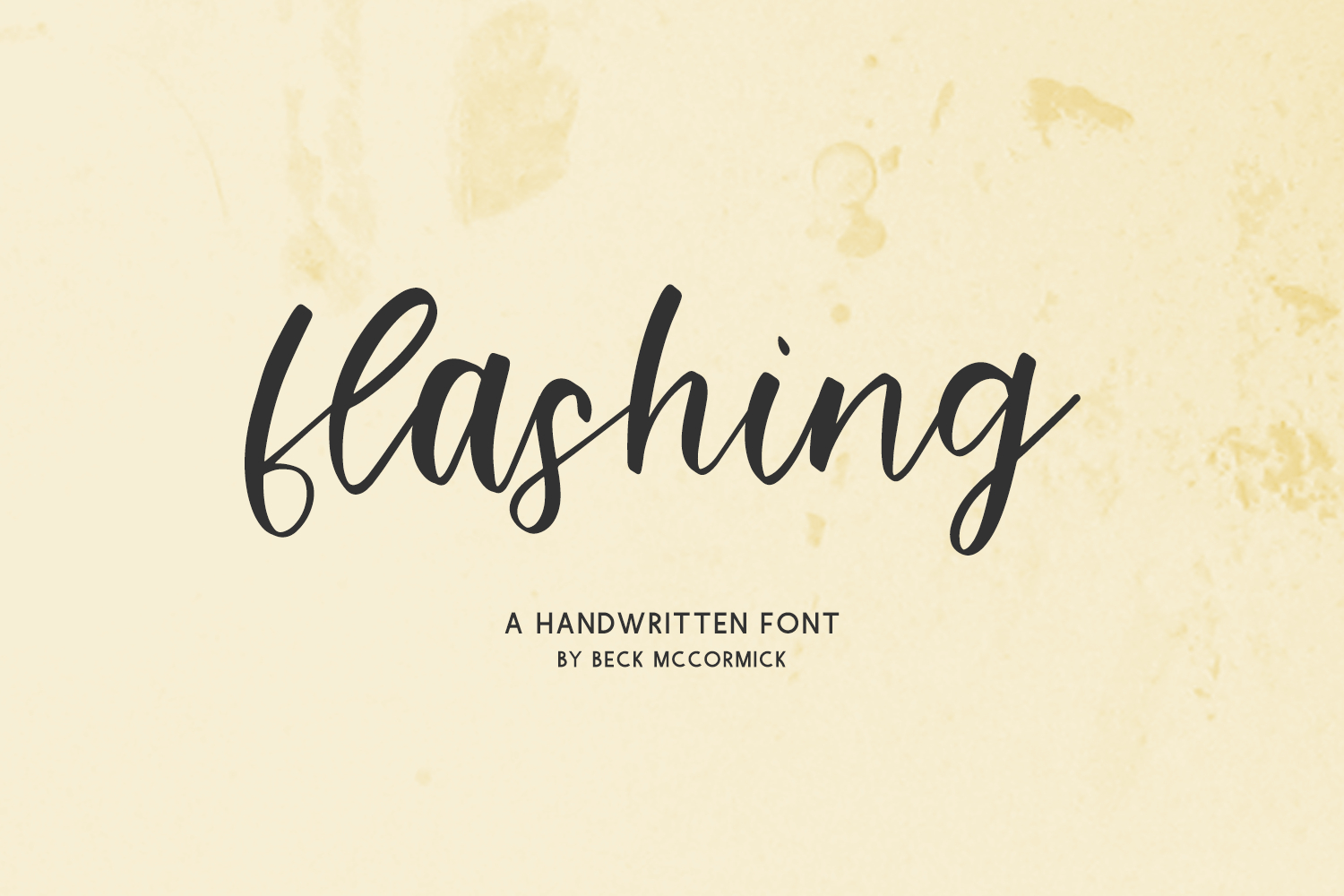
Introducing Flashing, a modern calligraphy script.
Flashing is best for:
- modern, edgy projects with your Cricut or Silhouette machine, or your SVG design business
- farmhouse decor and crafts
- digital planners & apps like Goodnotes
- website design + website accents, blog design
- graphic tee shirt design & other apparel